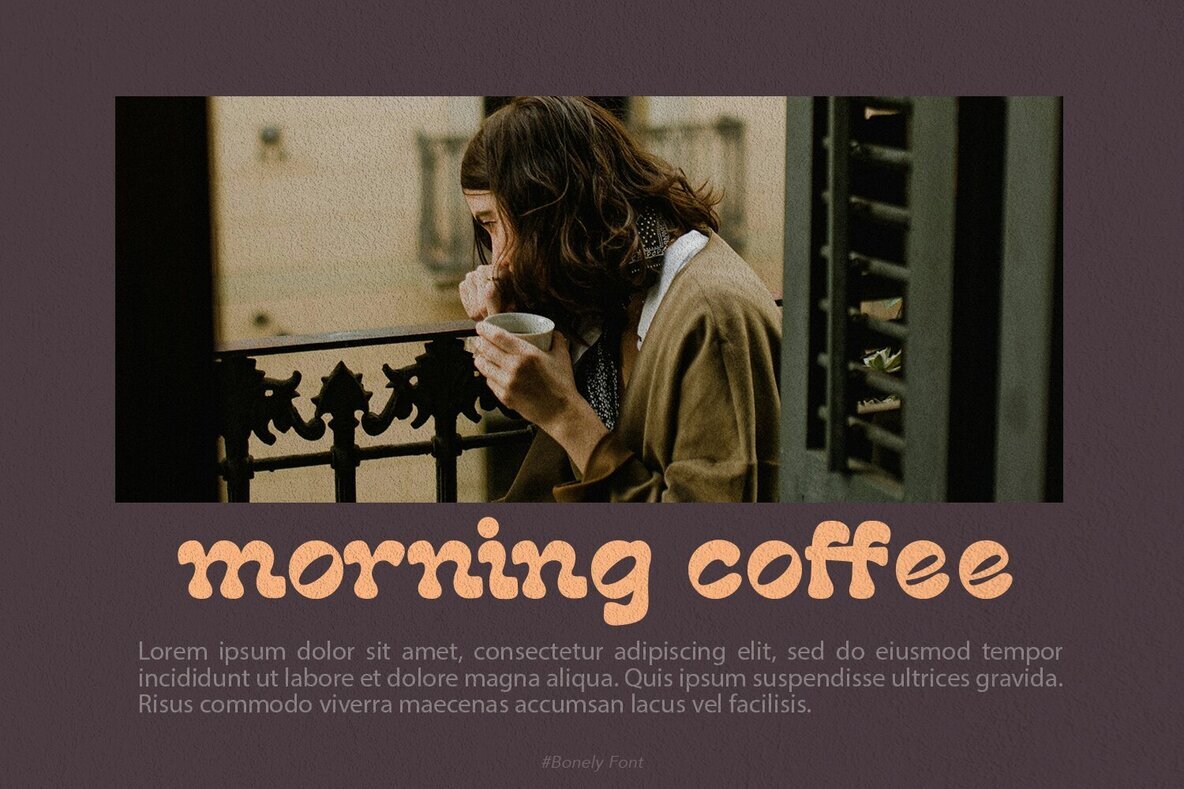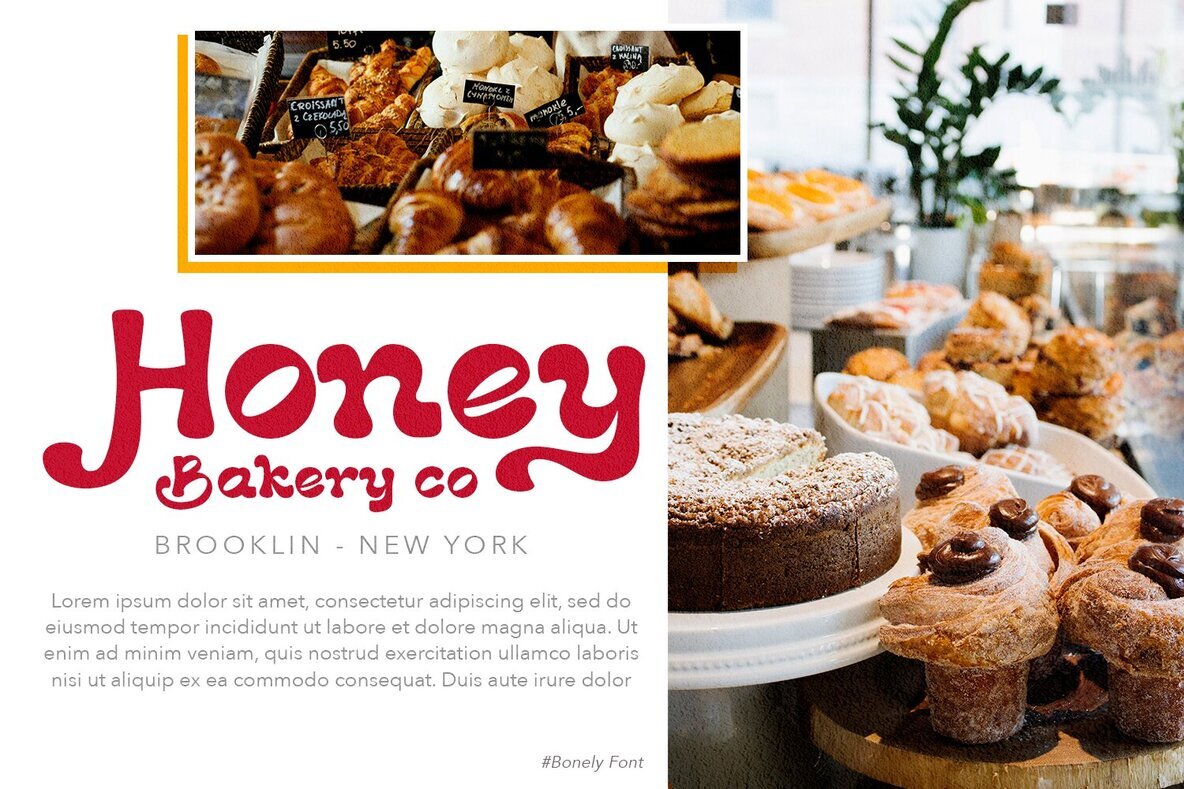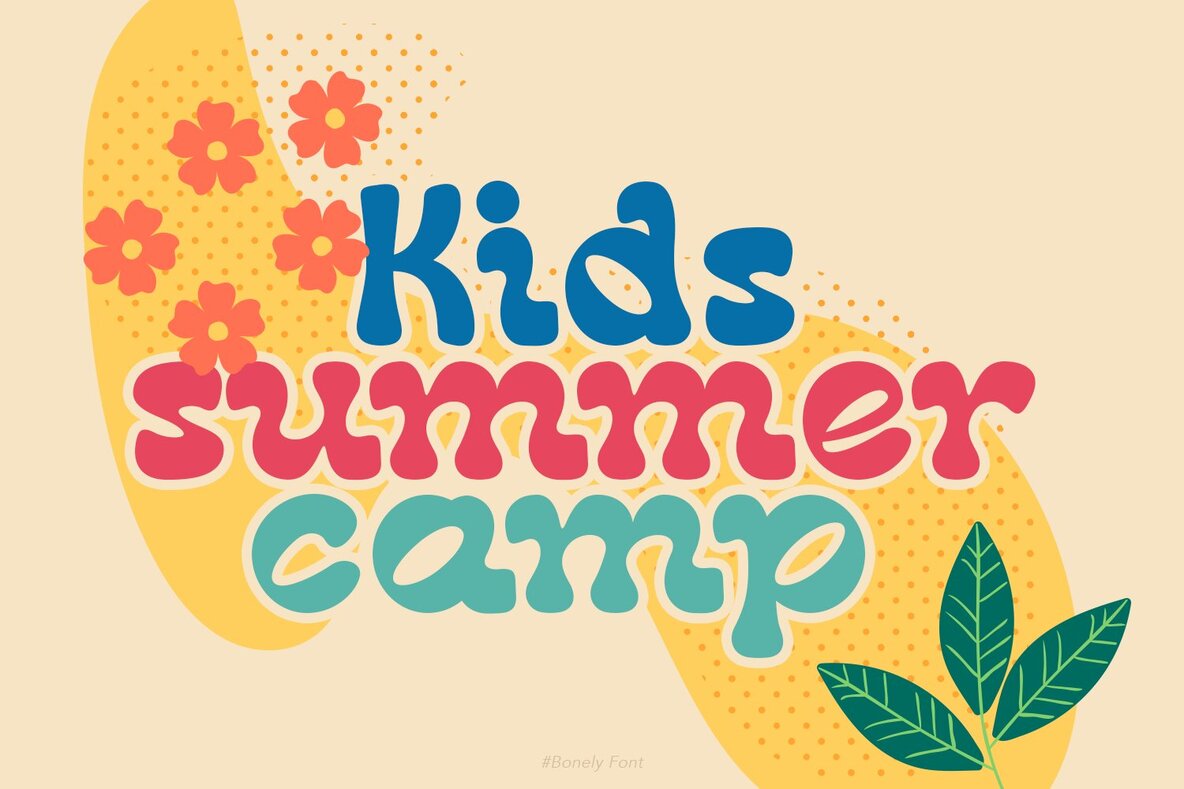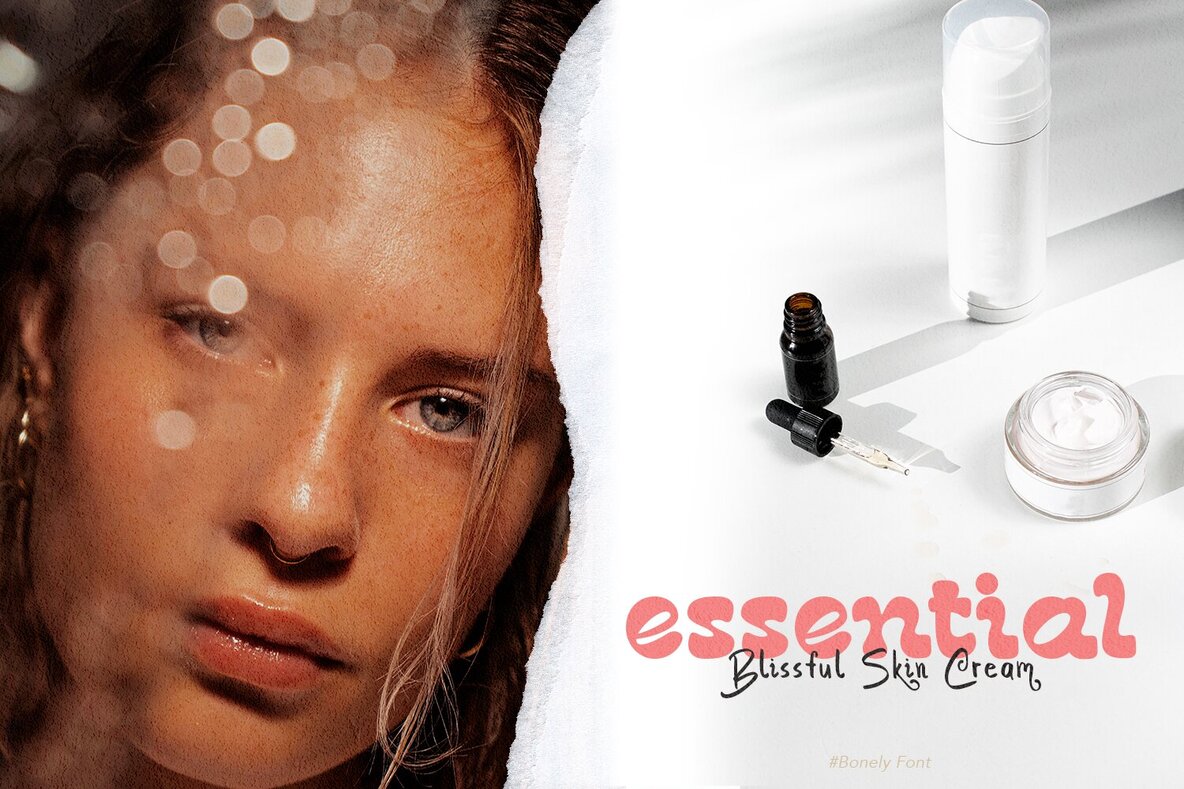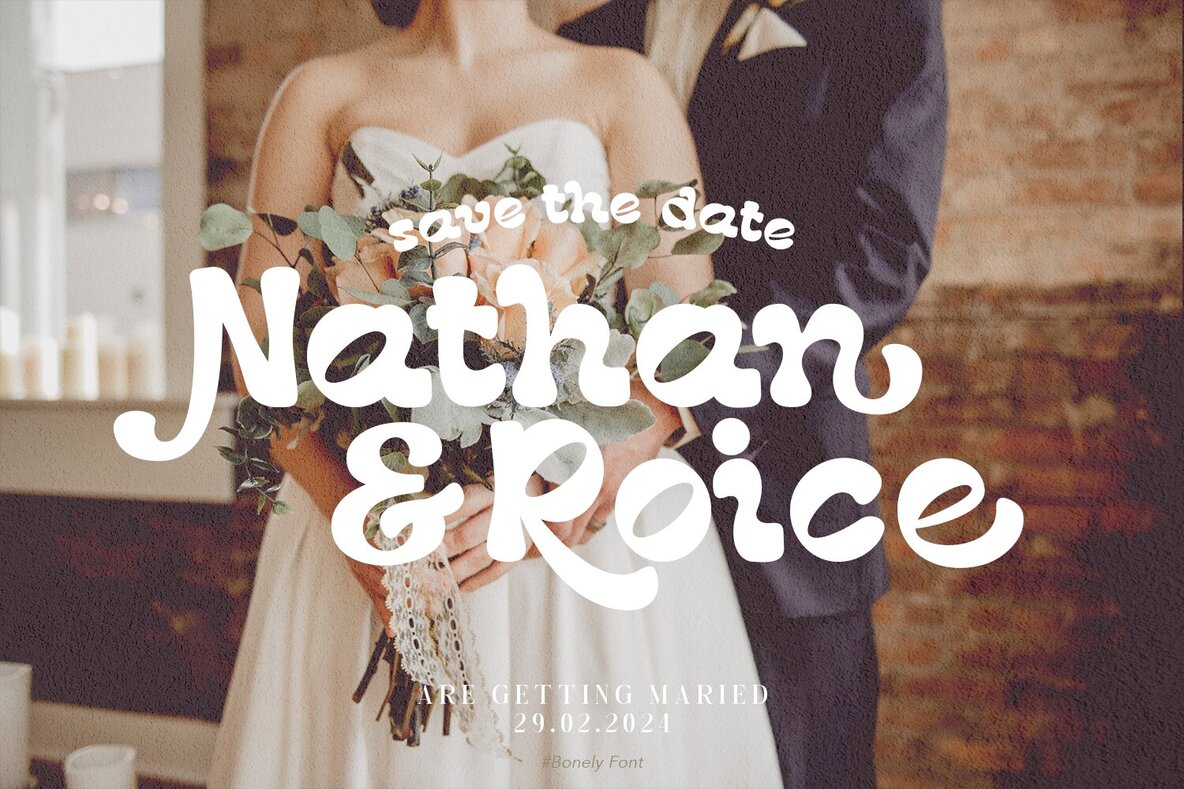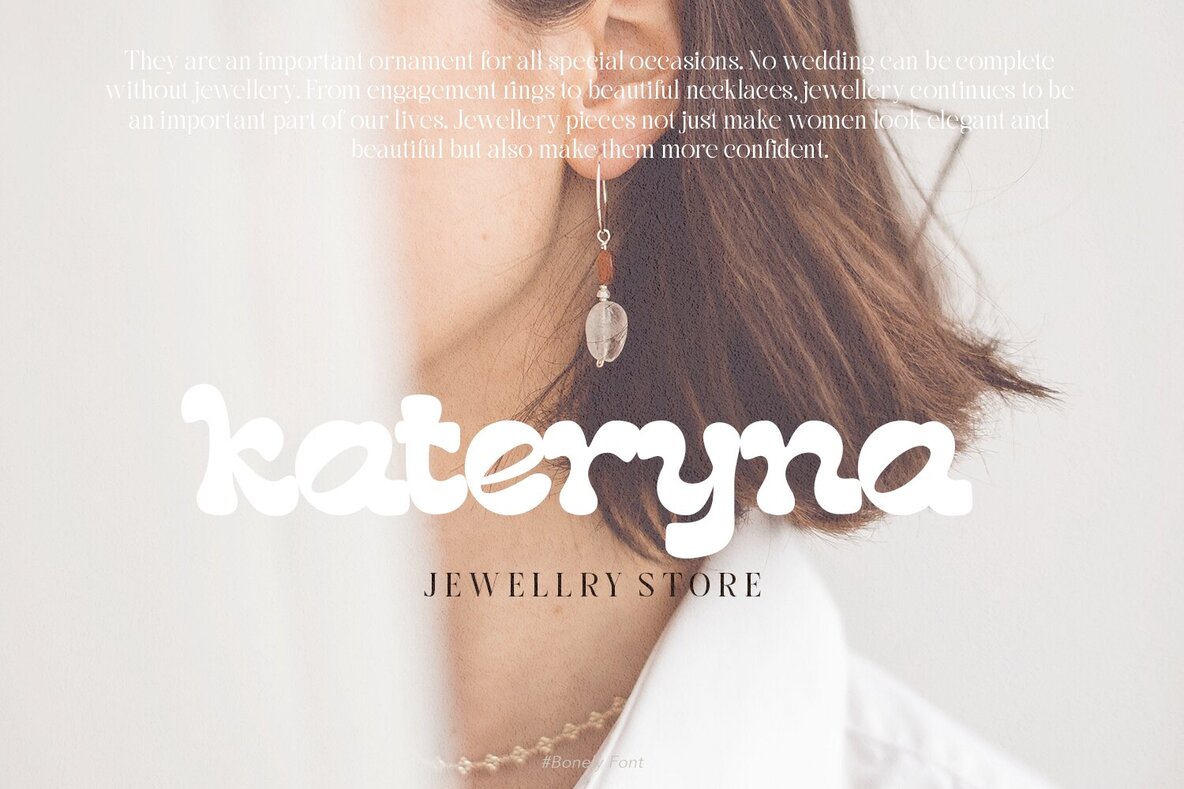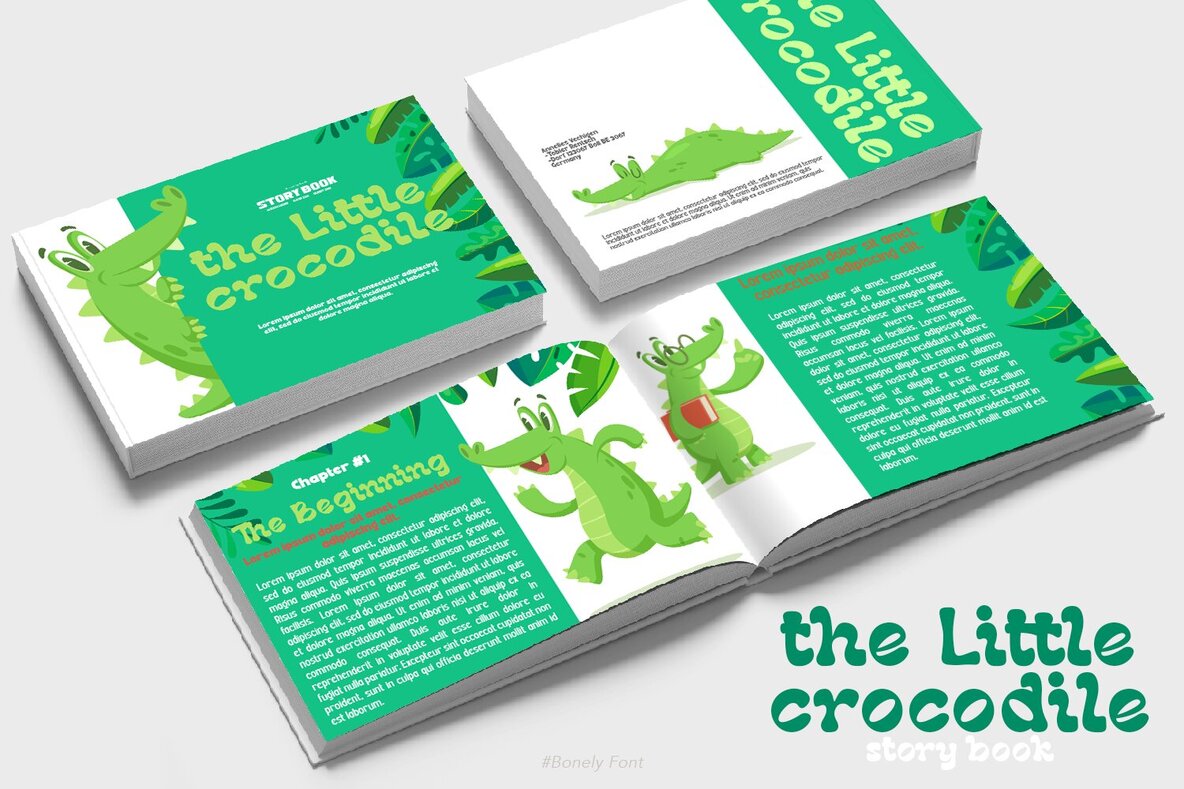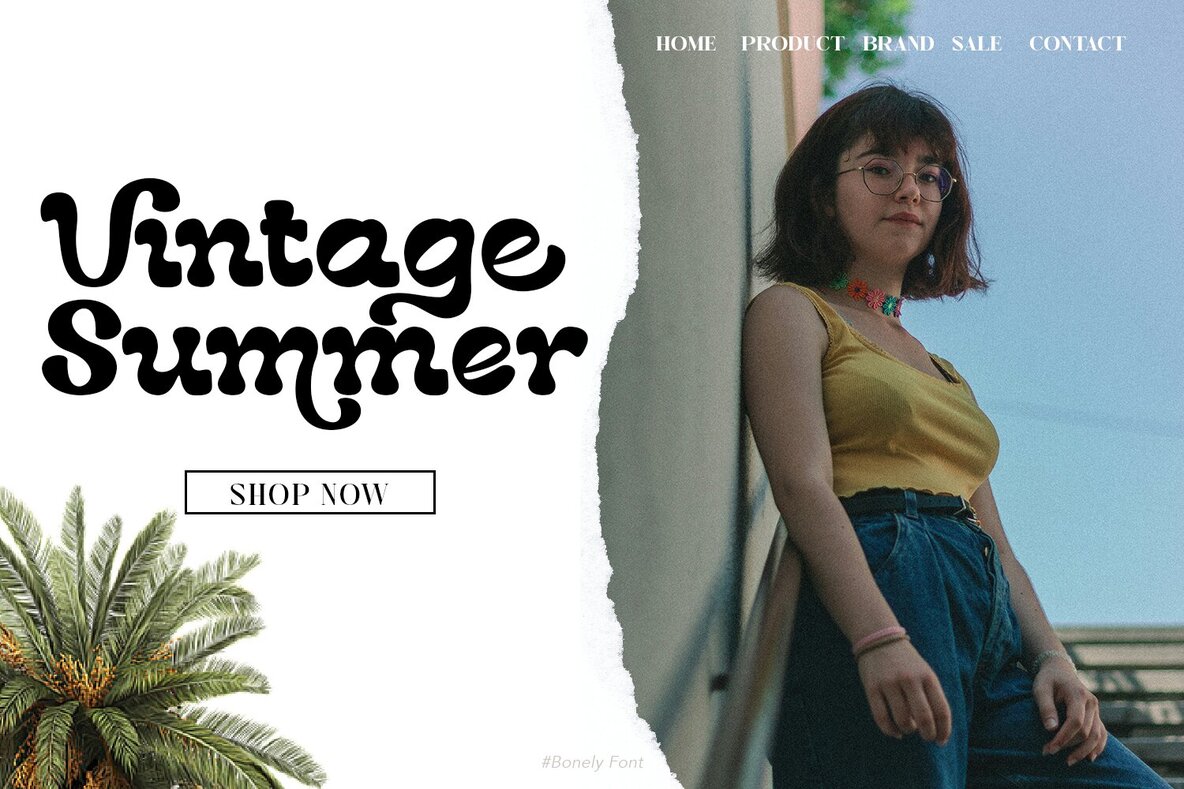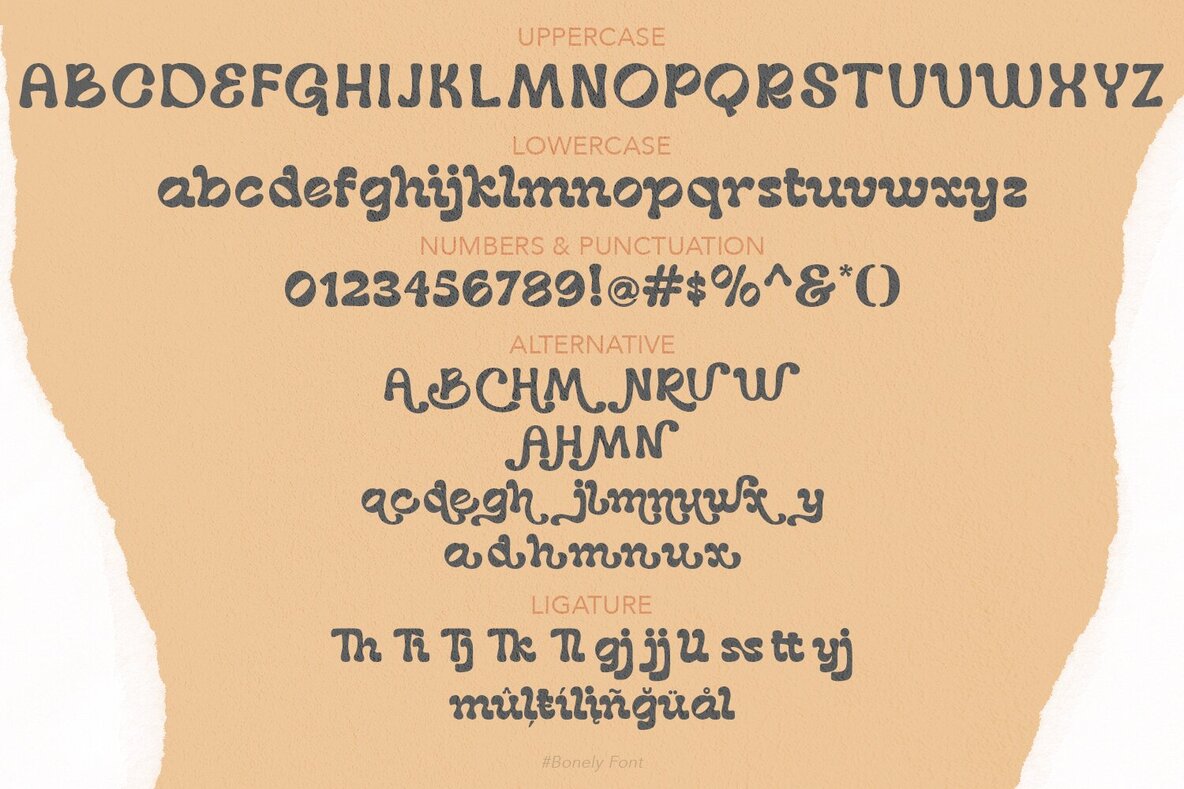
Bonely Font
Bonely Regular
Bonely is a captivating script font designed to bring a touch of retro flair to your creative projects. It features a variety of alternatives and ligatures, making it an excellent choice for diverse applications.Bonely: Retro-Inspired Script Font with Versatile Ligatures